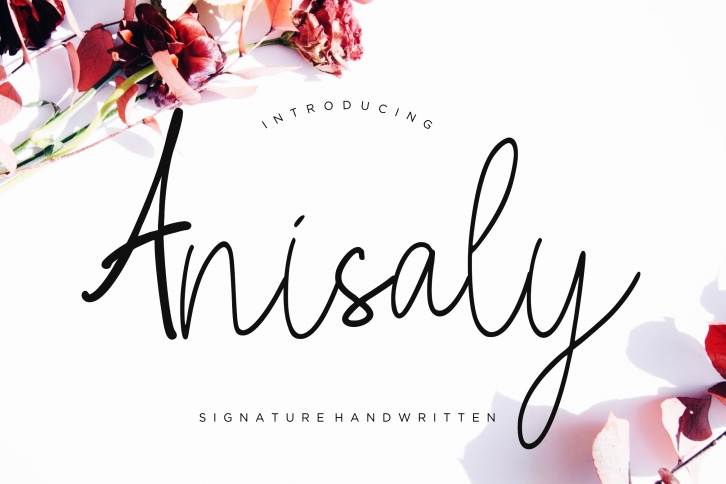
Anisaly Script is a gorgeous font that was realeased on September 11, 2019. The font can be used in many style contexts and design environments. Perfect for invitations, magazines, websites, logos, and more! It was designed by Creatype Studio and the file size is 11.39 MB. Thanks for checking out this font!